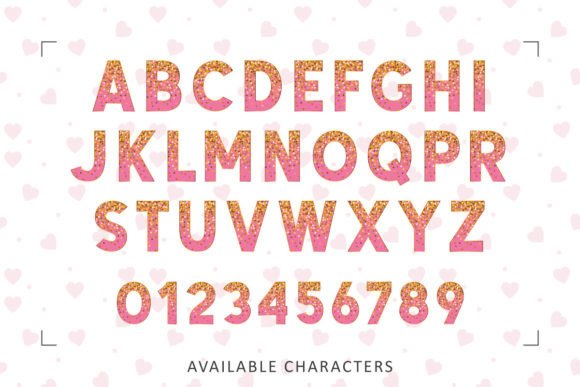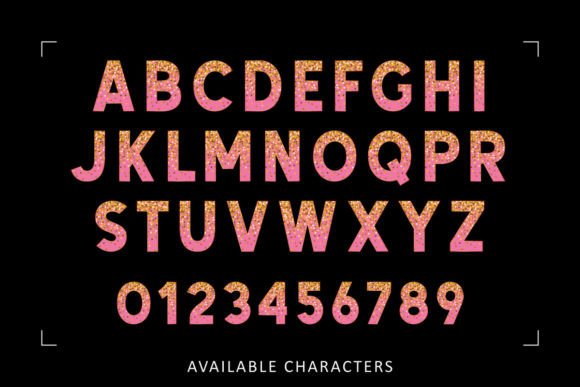
Mothers Day Pink Glitter Font
Introducing “Mothers Day Pink Glitter Font” with a classy touch. — Pink glitter patterns convey the love of a mother, Mother’s Day. This font can be used in a variety of ways and will make your work look super cute! Its mesmerizing shine twinkles like someone cast a spell on it that will brighten up each of your designs. Perfect for logos, posters, websites, T-shirts and more. Add it confidently to your projects, and you will love the results.